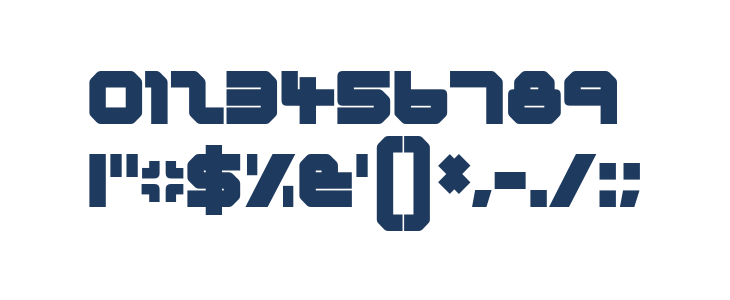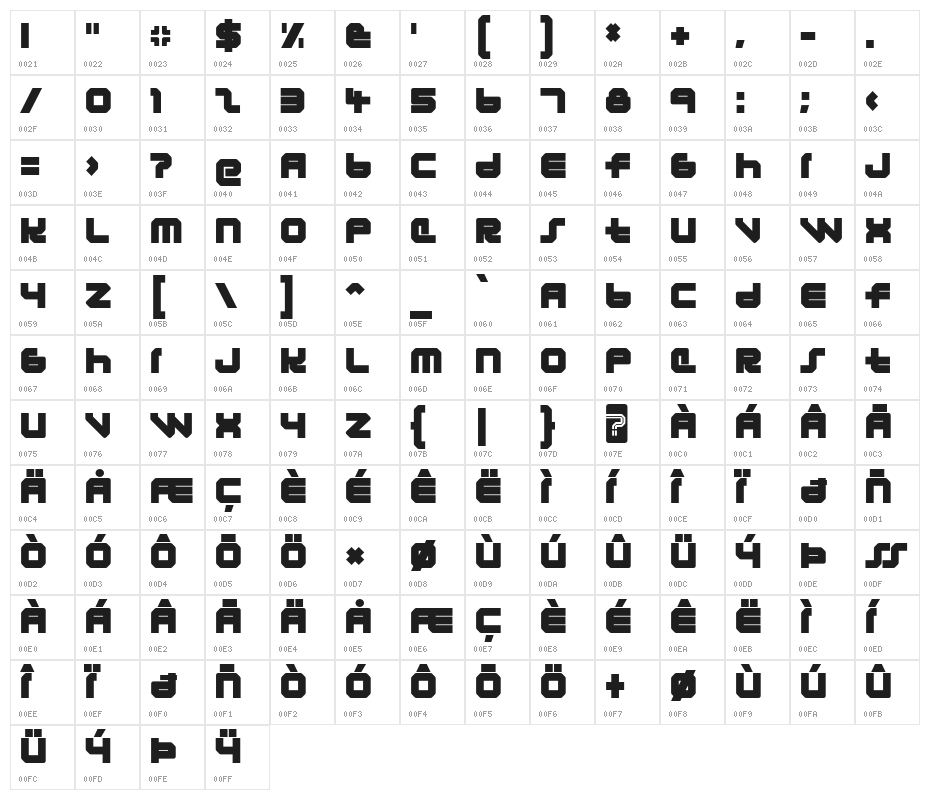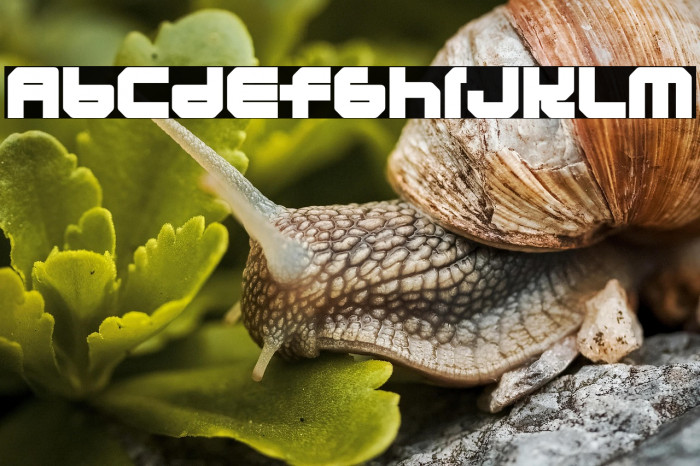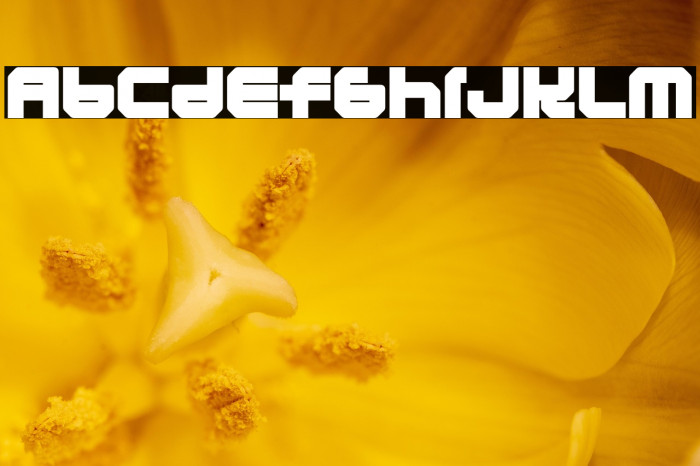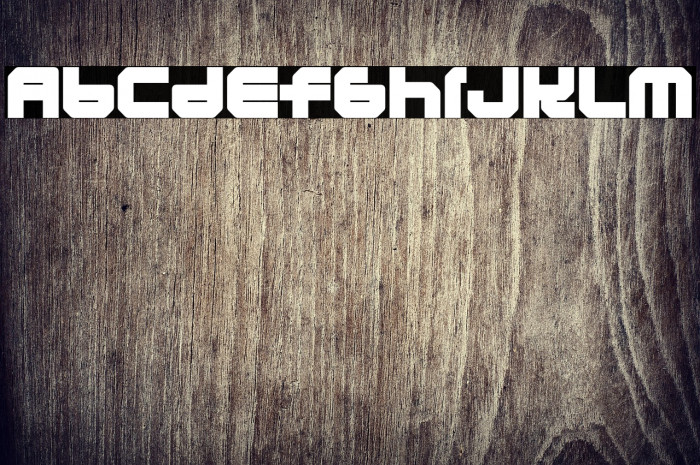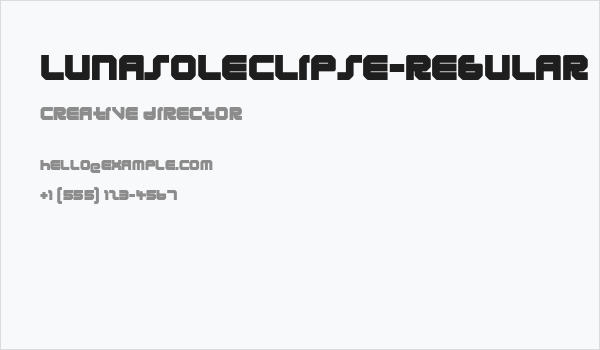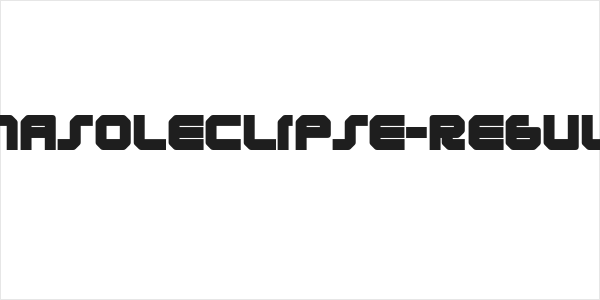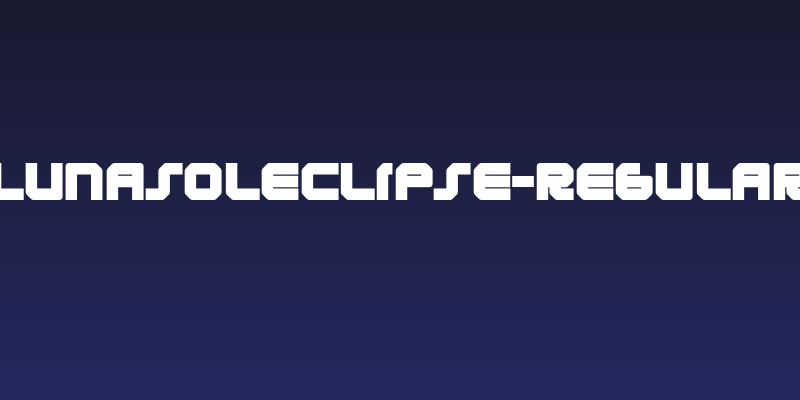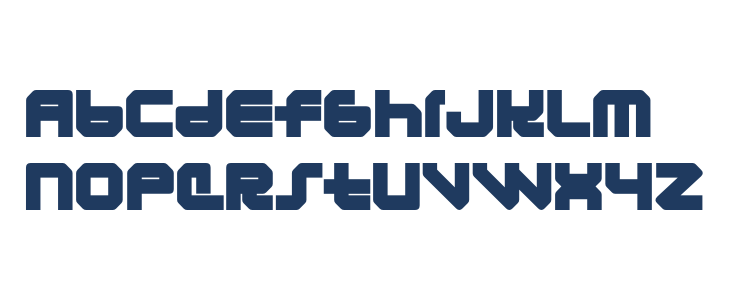
LunasolEclipse-Regular Font
LunasolEclipse-Regular Description
This font features a bold and geometric design with a futuristic appeal. The characters are constructed with thick, block-like strokes that create a strong visual impact. The angular edges and uniform line thickness contribute to a modern and industrial aesthetic. The uppercase and lowercase letters maintain a consistent style, with a focus on symmetry and balance. Numbers and special characters follow the same design principles, ensuring a cohesive look across all elements. This font is ideal for projects that require a bold and assertive typeface.